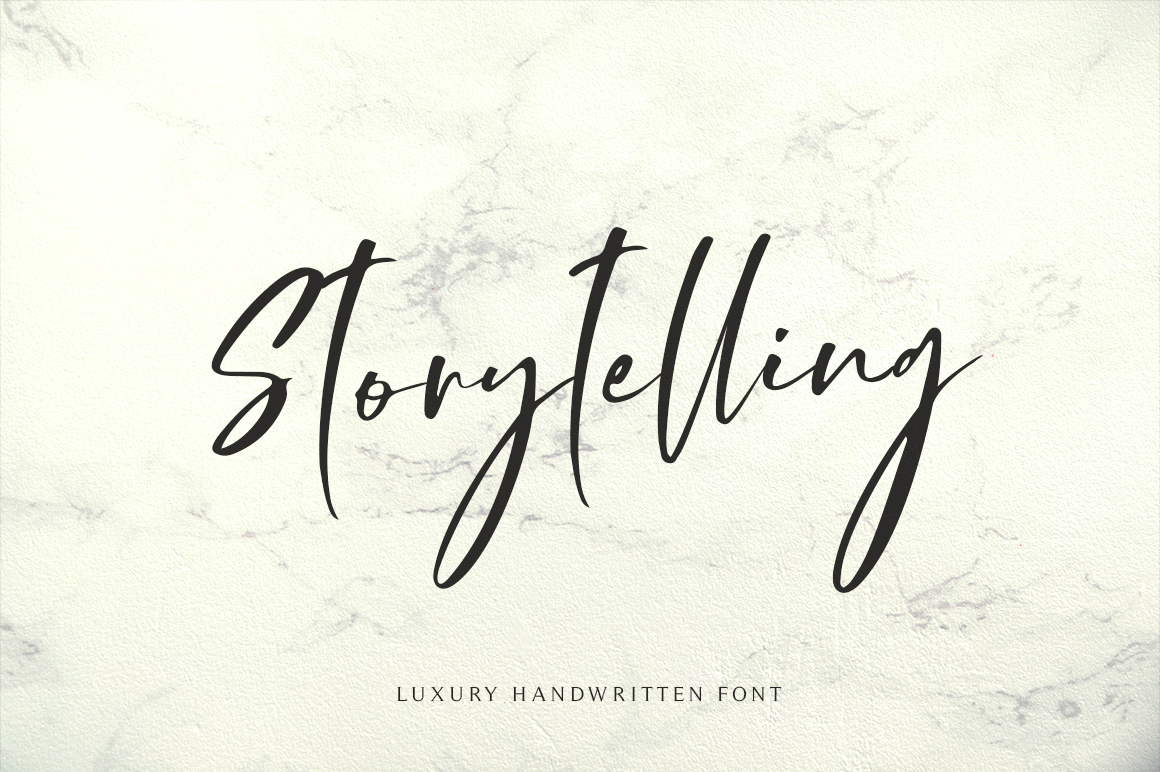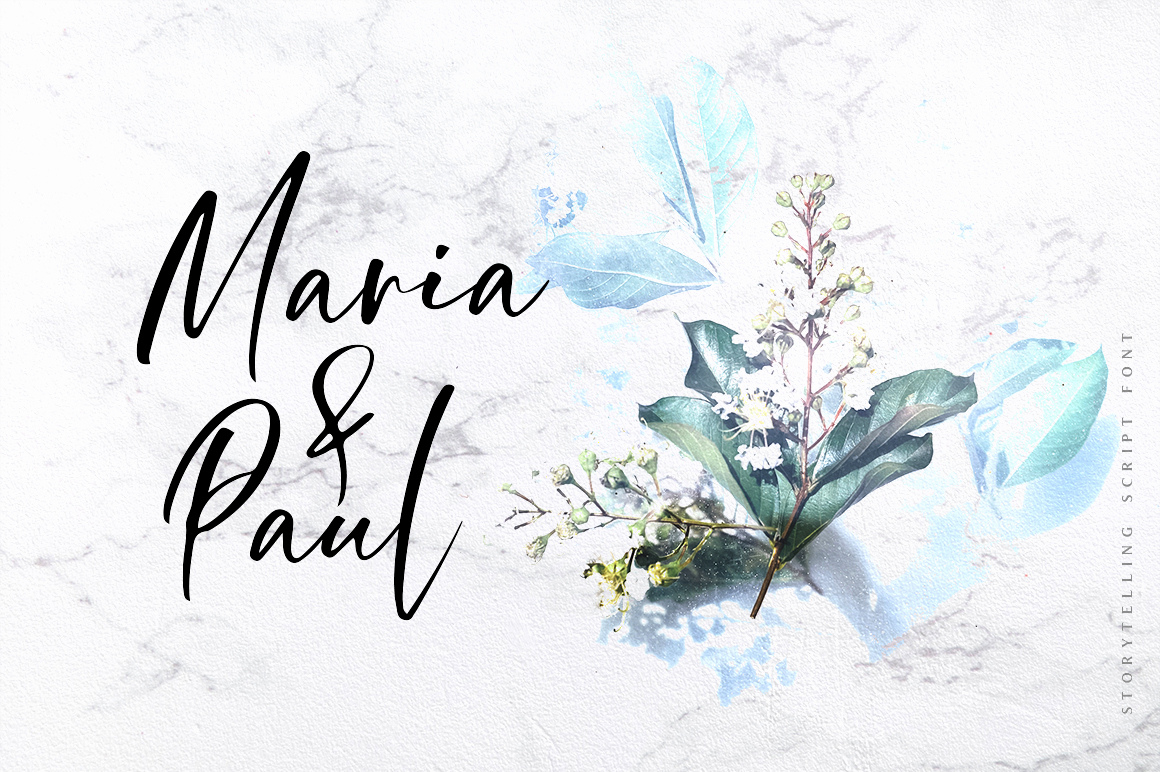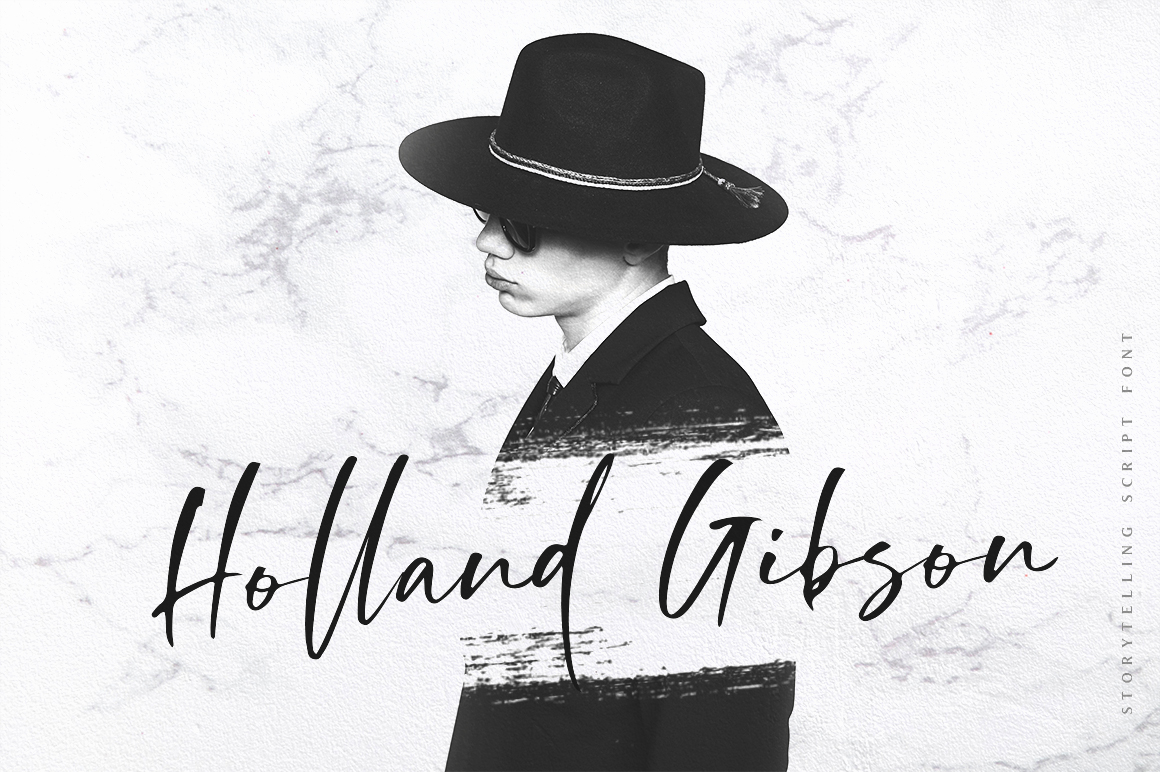
Storytelling is a modern calligraphy font with a natural handwritten character. Explore it for wedding stationery, personal branding, and elegant short messages.
Storytelling gives names and brief phrases a calligraphic focus. It can lead an invitation, become a signature element in a brand concept, or add a personal voice to a carefully composed social graphic.
Use the script for the part of the message that deserves emphasis and pair it with simpler text for practical details. Preview the actual wording to judge its flow within your layout.